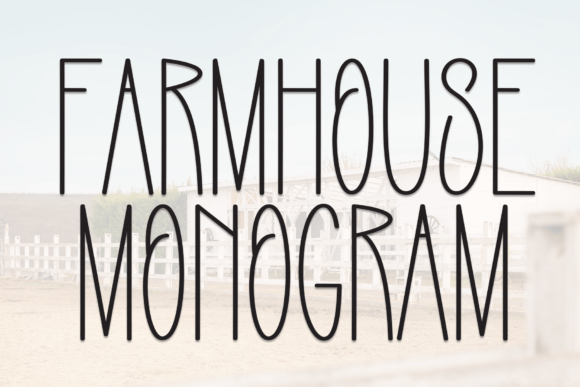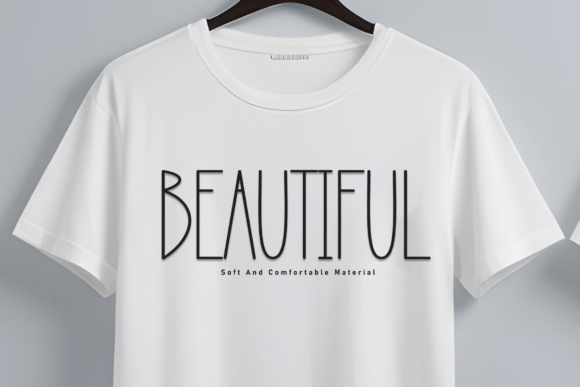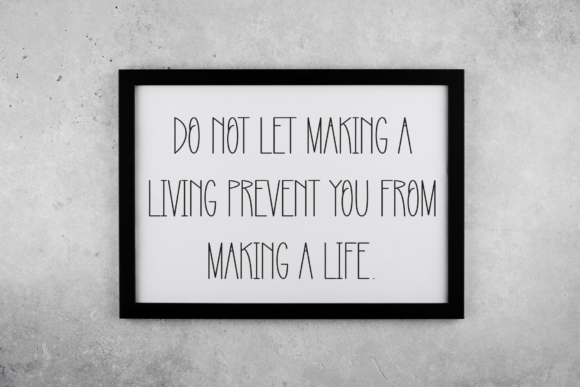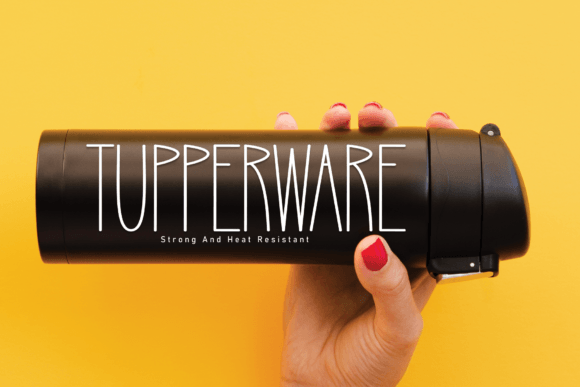
Farmhouse Monogram Font
About the Farmhouse Monogram Font
Meet Farmhouse Monogram Font, a stunning font that brings a touch of elegance and professionalism to any design. Farmhouse Monogram is a tall, handwritten display font with a rustic and charming look. It’s perfect for adding a personal touch to farmhouse-style designs, monograms, crafts, and decorations. Simple and stylish!
Its tall, slightly irregular letterforms make it ideal for headlines, short slogans, and branding elements where a touch of rustic charm is desired. It excels in applications like logos for artisanal food companies, boutique hotels, or craft businesses. Avoid using it for body text or lengthy paragraphs; its unique character is best suited for impactful visual statements rather than extended readability.
Pair Farmhouse Monogram with a clean sans-serif like Montserrat for a balanced contrast, or a more traditional serif like Playfair Display for a classic, sophisticated feel. A script font like Great Vibes could also work well for secondary text, creating a layered, handcrafted look, especially in wedding invitations or other event stationery.
The font’s overall personality is friendly, approachable, and subtly elegant. Its handcrafted quality lends itself to designs emphasizing authenticity and a connection to traditional craftsmanship.
Farmhouse Monogram Font Usage Examples
Farmhouse Monogram Font Example